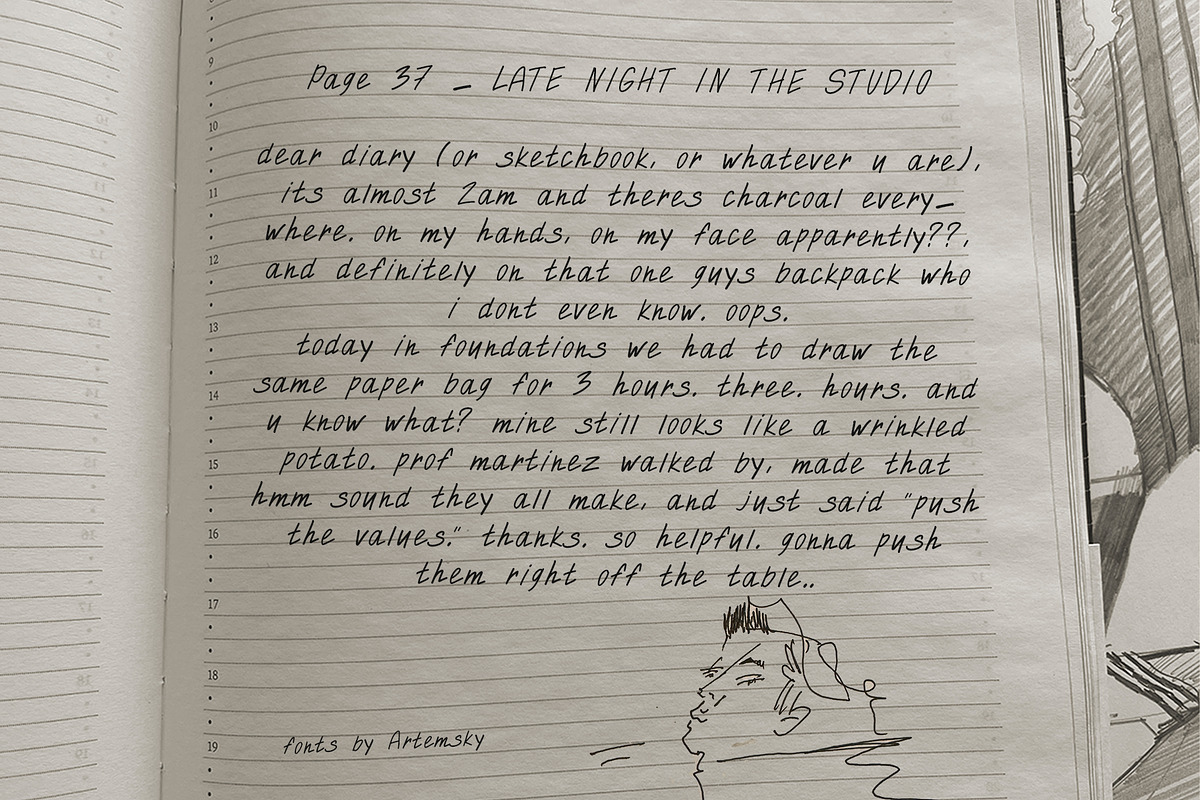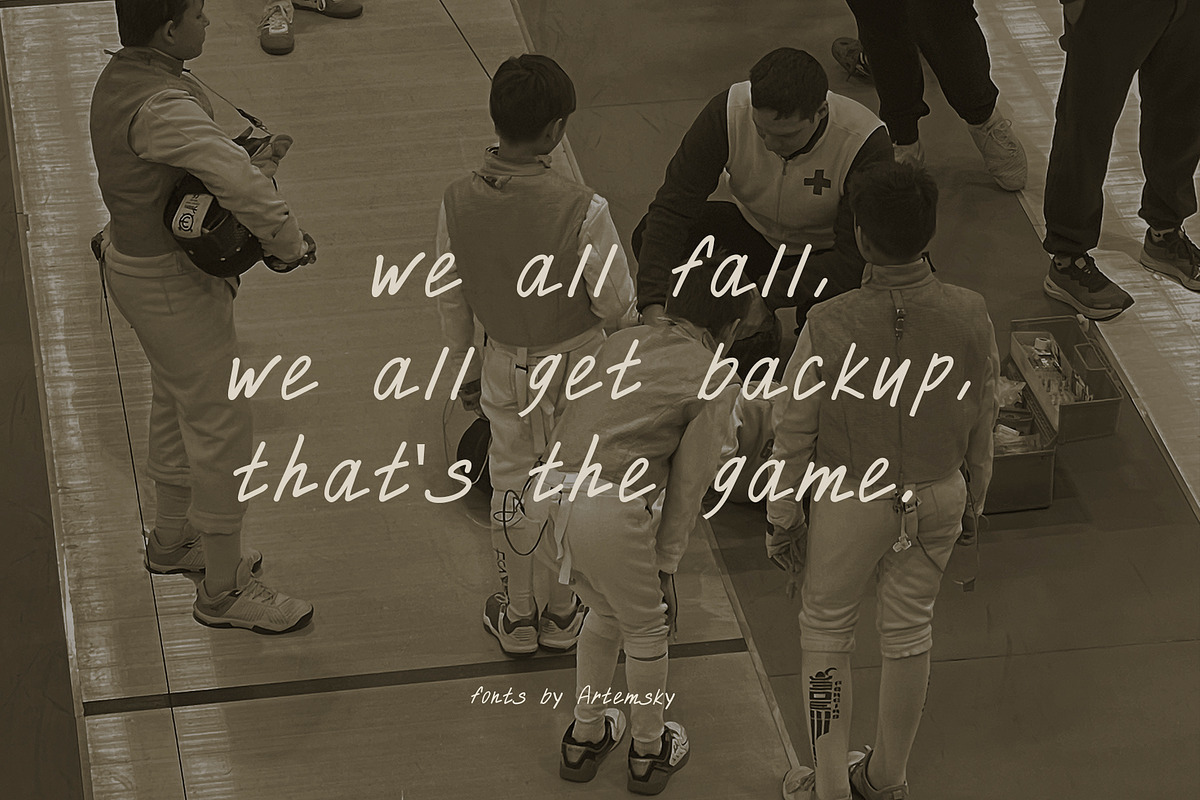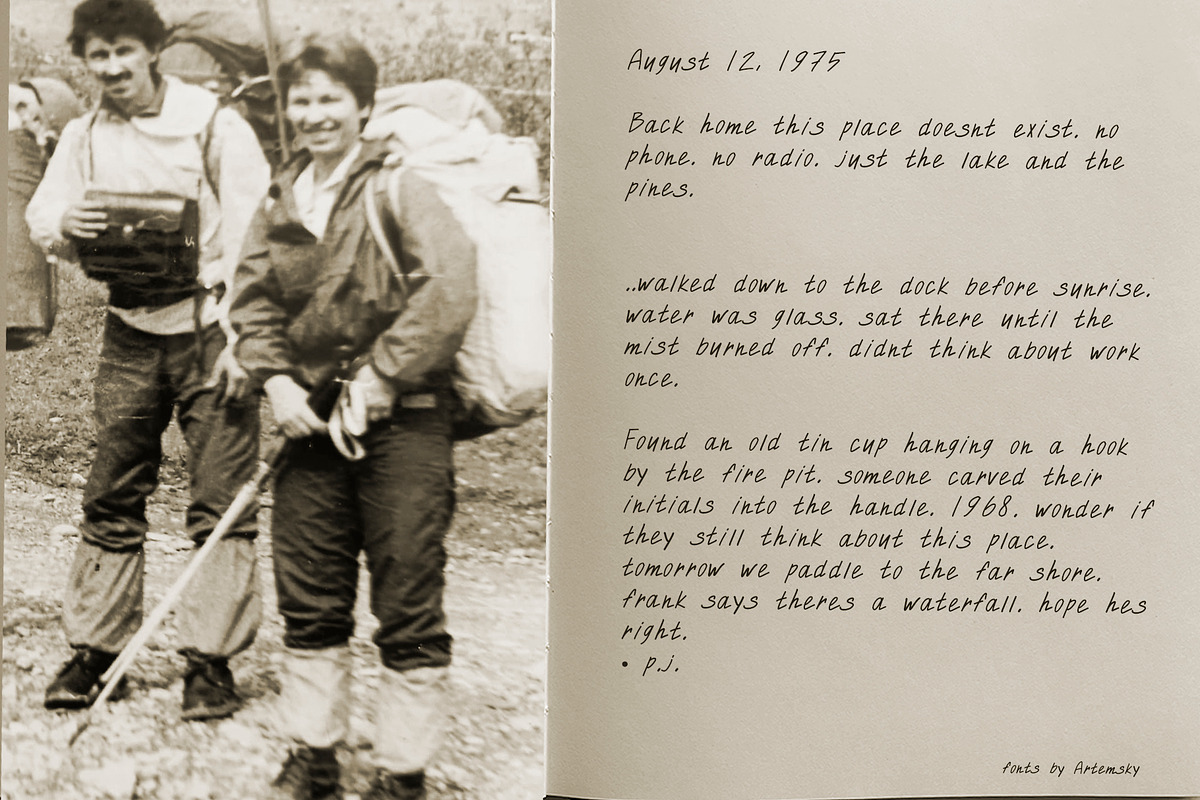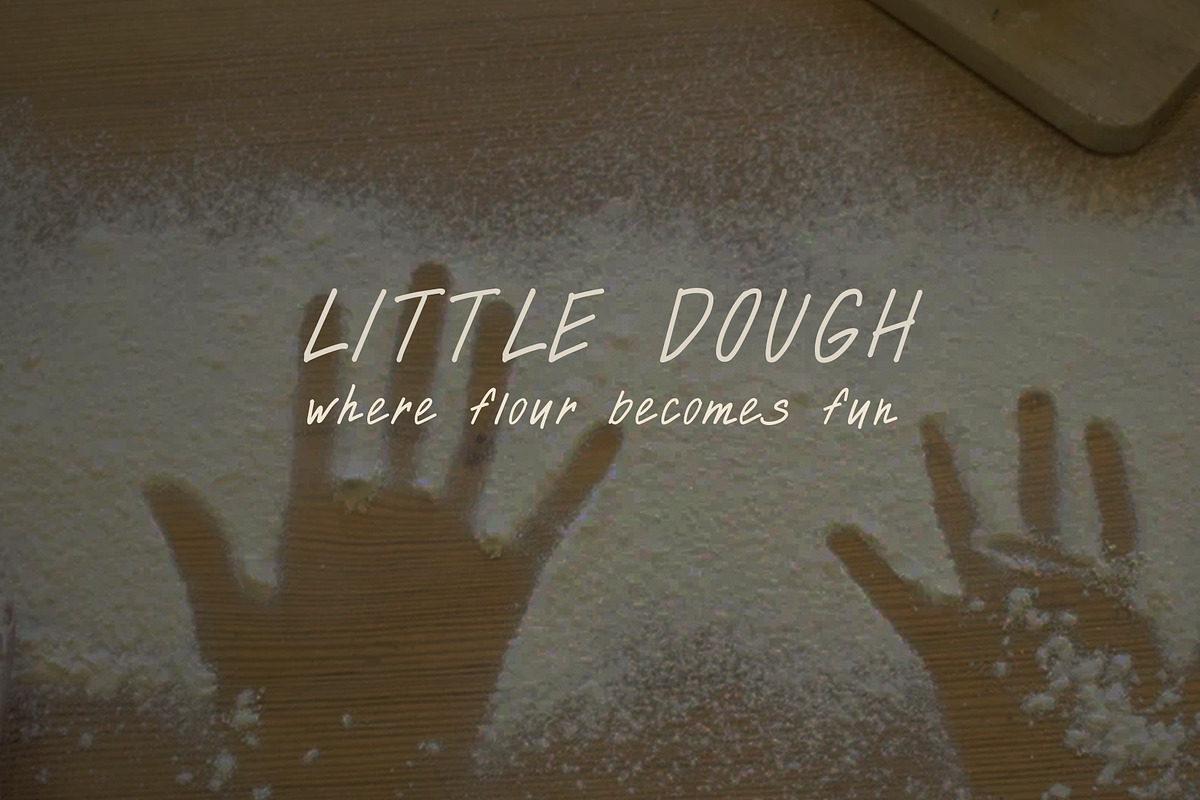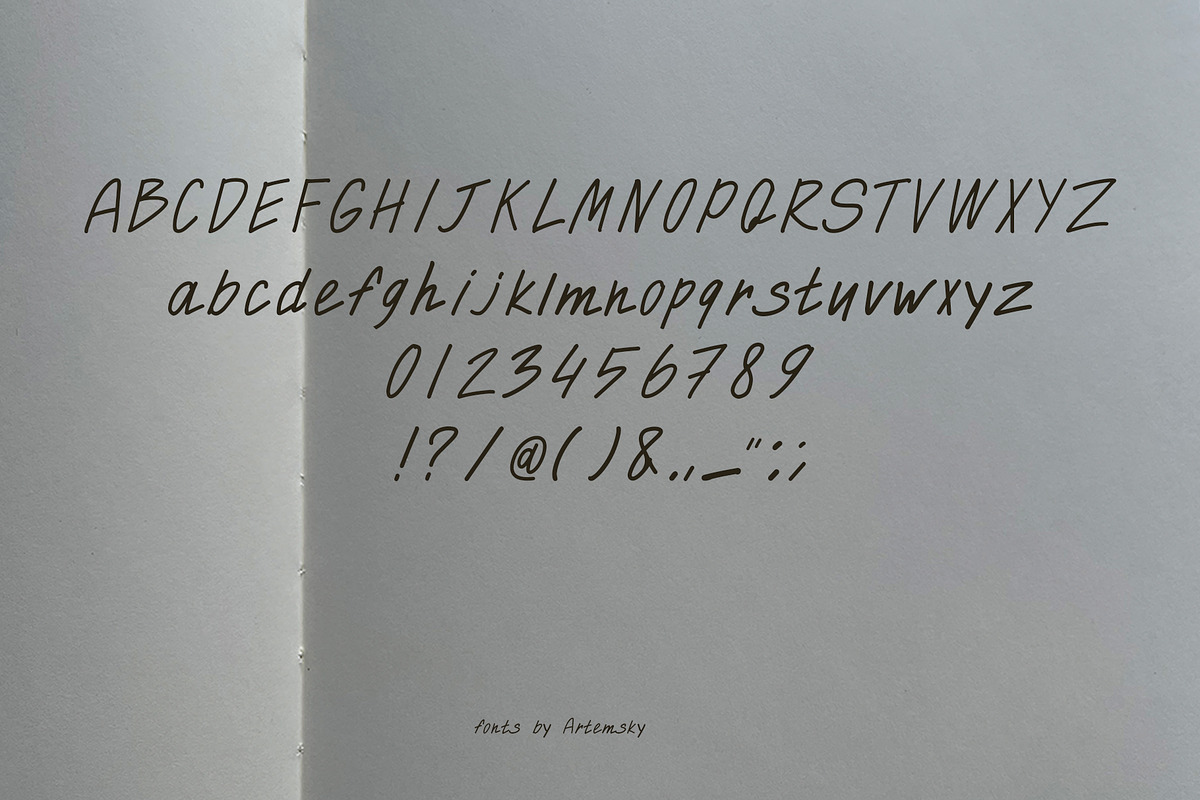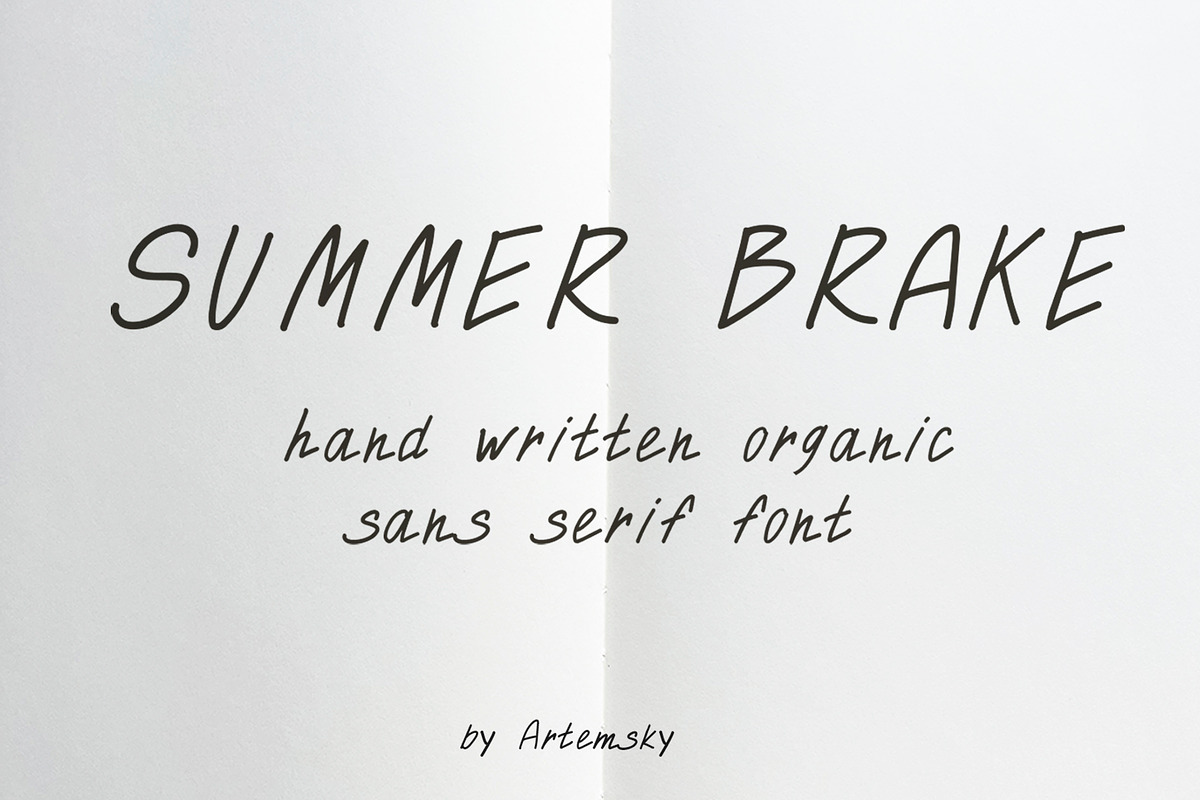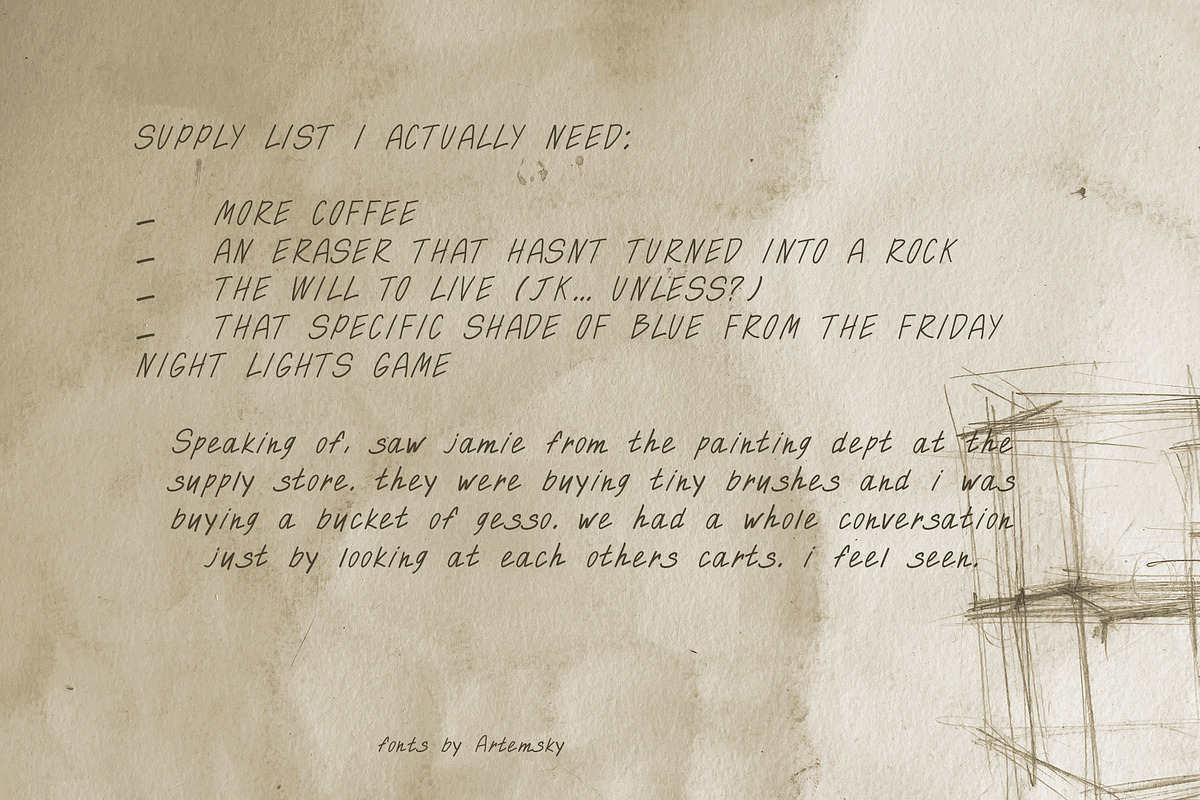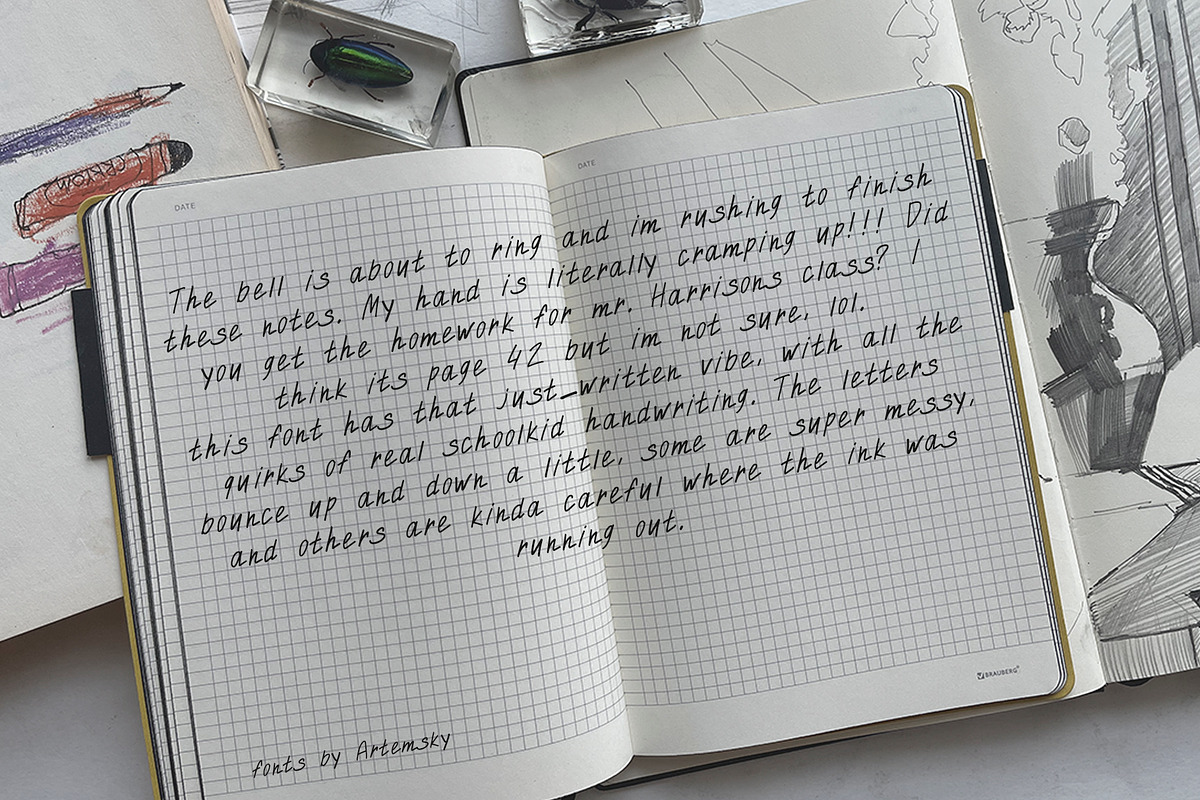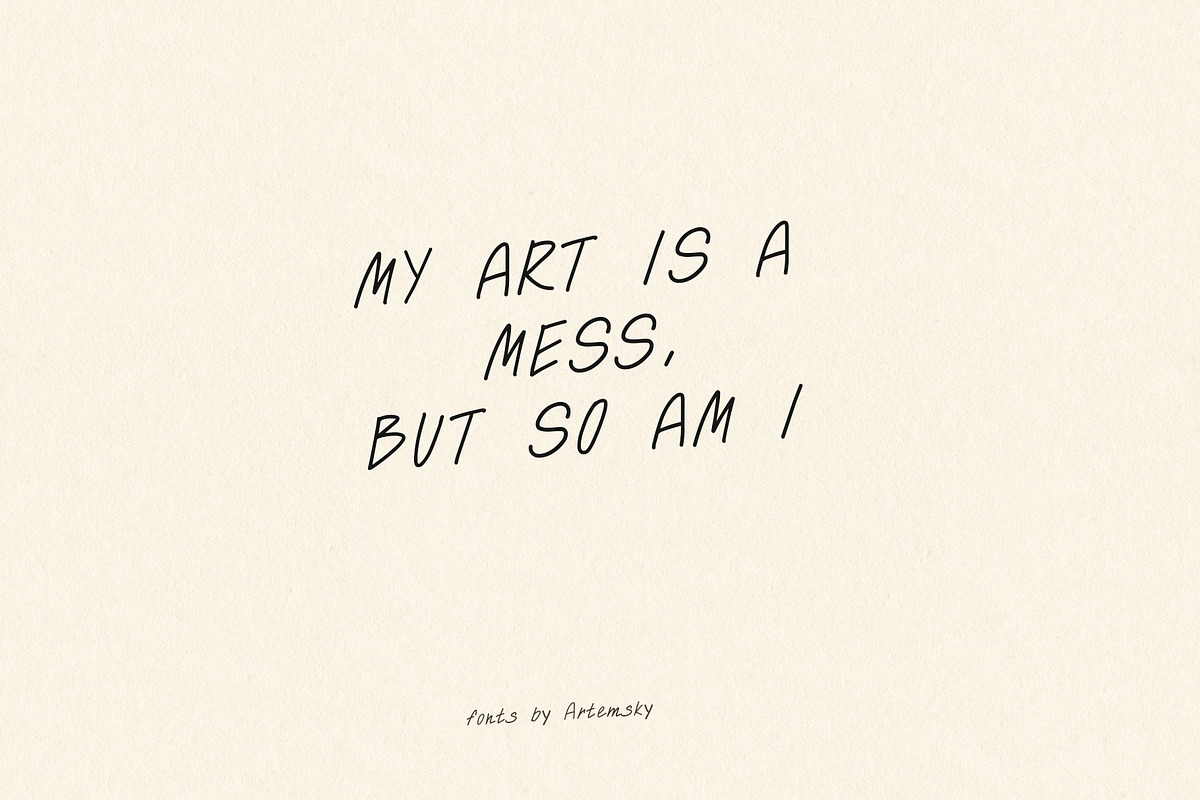
Organic Sans Serif Hand Written Font
Scool Brake - Playful Sans Serif Student Handwritten Font.
Description: Scool Brake captures the authentic, rushed energy of student handwriting-like notes passed in class or doodles in the margins of a notebook. This organic sans serif font has that just-written feel, with natural imperfections and bounce that make every word look human.
School projects and educational materials
Youth brands and kid-friendly designs
Zines, posters, and underground publications
Social media stories and casual branding
Packaging for playful products
Quotes and invitations with a personal touch
Why designers love Scool Brake:
It looks like real handwriting-not too perfect, not too messy. Just right for when your design needs to feel personal, approachable, and full of character.
Scool Brake - because the best ideas usually end up scribbled on the back of something.